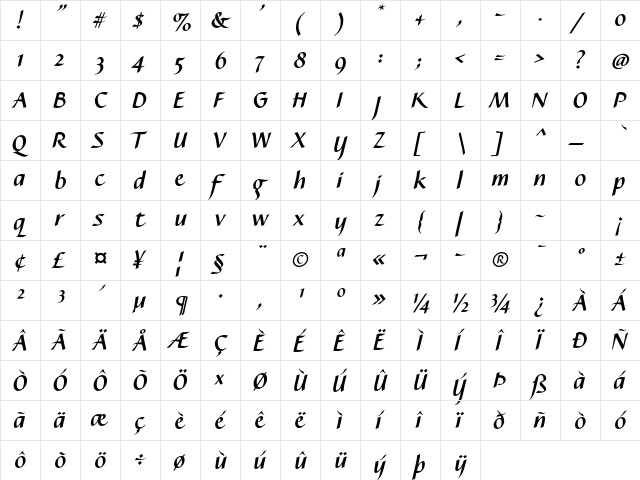
Caterina LT Std Bold Italic
| Foundry | Linotype GmbH |
| Designer | Paul Veres |
Design Context for Caterina LT Std Typeface
Caterina LT Std is a composed and adaptable typeface that performs quietly and consistently across a wide range of design contexts. Its italic angle brings a sense of urgency and motion to the letterforms. Its bold stroke weight gives it real presence on the page.
Pro Tip: Use Caterina LT Std for emphasis, pull quotes, and subheadings where its slanted energy can add rhythm to the layout.